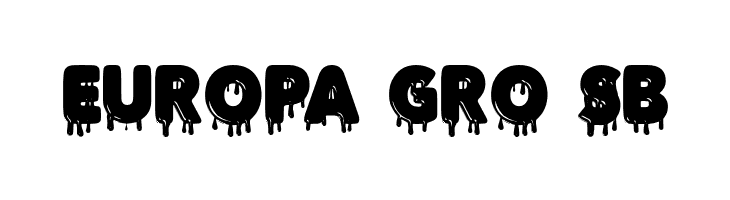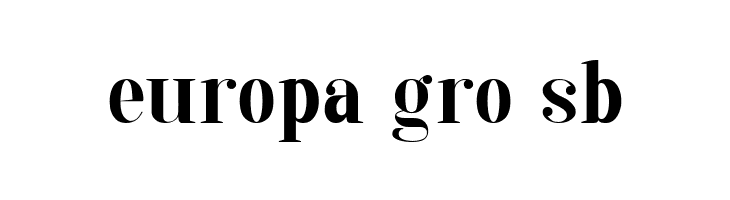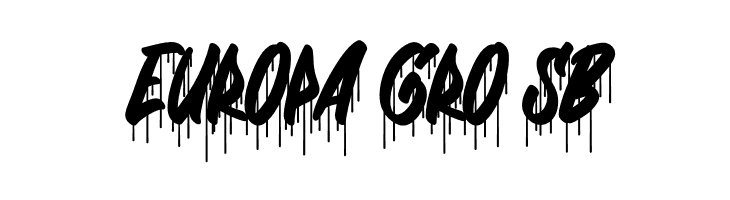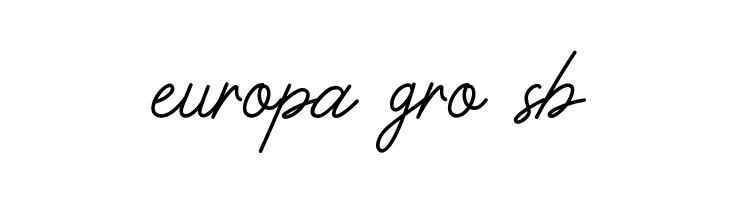
• Drepton Olina
A flowing, cursive font with interconnected characters and medium contrast.
• Dresden Elektronik
A playful, hand-drawn style font with rounded, irregular strokes.
• Dress Signature
A sophisticated, elegant handwritten script with a fluid, connected style.
• Dressed Book Regular
A bold, rounded font with a playful and modern aesthetic.
• Dressed Filled Regular
A bold, rounded font with a playful, outlined style.
• Dressed Gradient Regular
A bold, decorative font with a gradient effect and thick outlines.
• Dressed Regular
A bold, playful font with rounded edges and a thick outline, perfect for fun and engaging designs.
• Dressedless Pro Regular
A bold, modern font with rounded edges and geometric structure.
• Dressedless Regular
A bold, modern font with rounded edges and a geometric structure.
• Dressedless Three
A bold, rounded font with a futuristic and modern design.
• Driana
A lively and elegant handwritten font with fluid cursive letterforms.
• Driana Brideth
An elegant script font with flowing, interconnected letters and graceful swashes.
• Drifter Seriff
A bold, modern serif font with elegant strokes and sharp serifs.
• Drinking
A tall, narrow font with a modern and sleek design.
• DRIPINKPERSONALUSE-Black